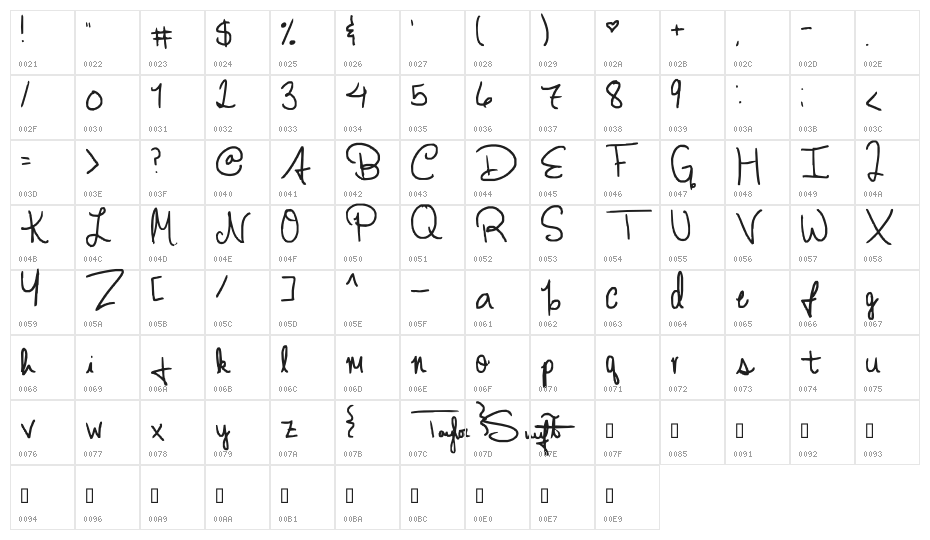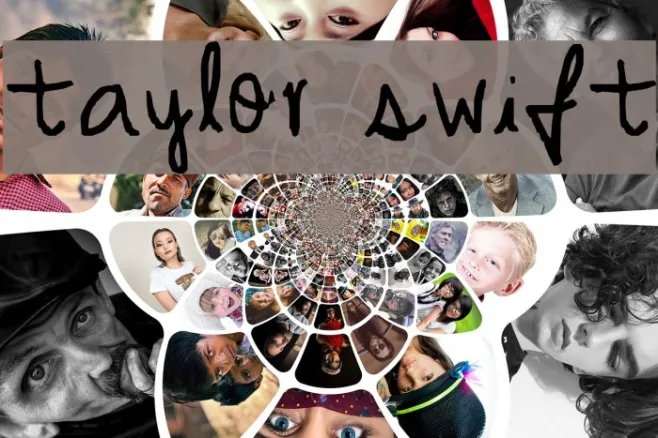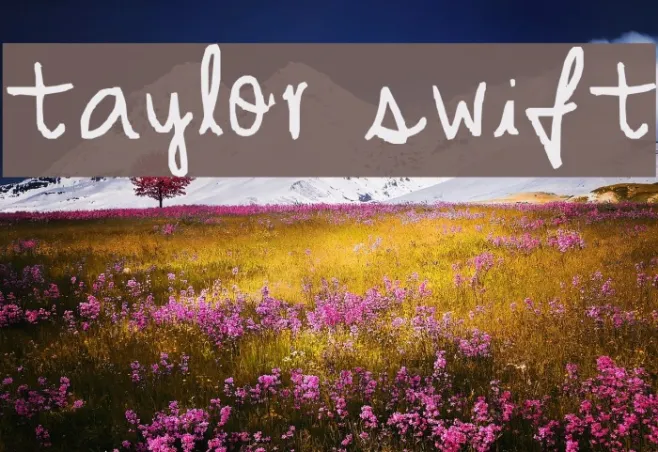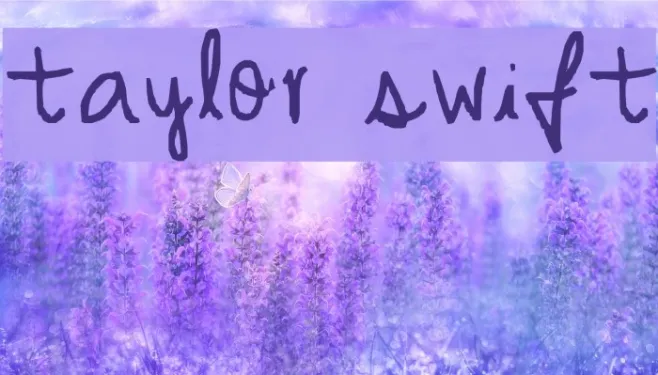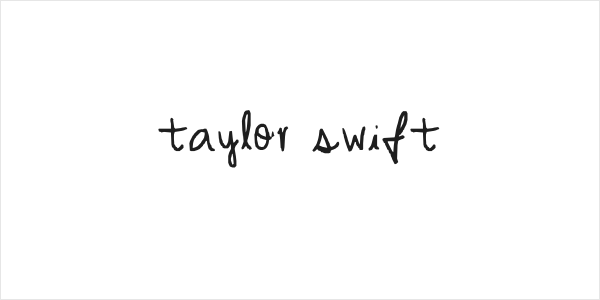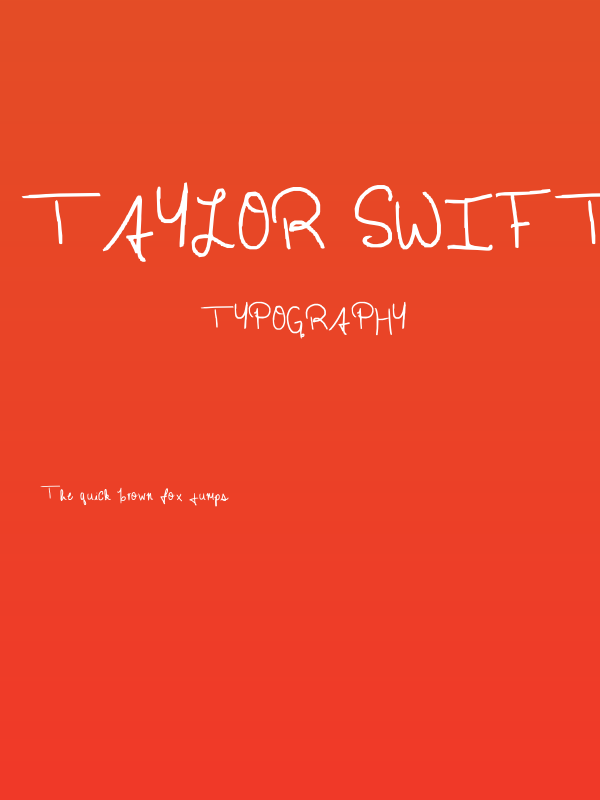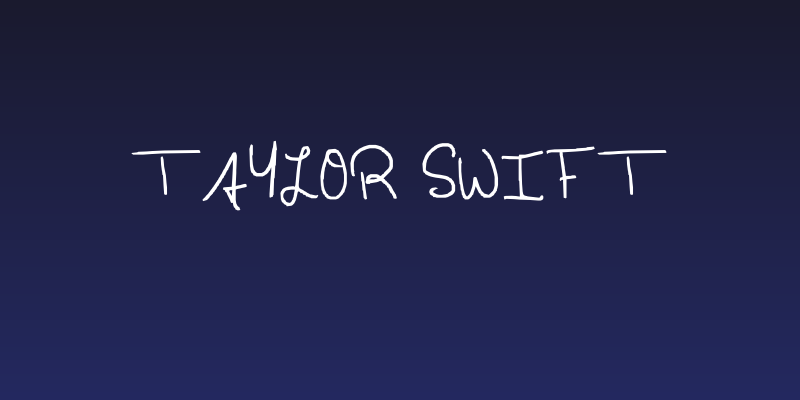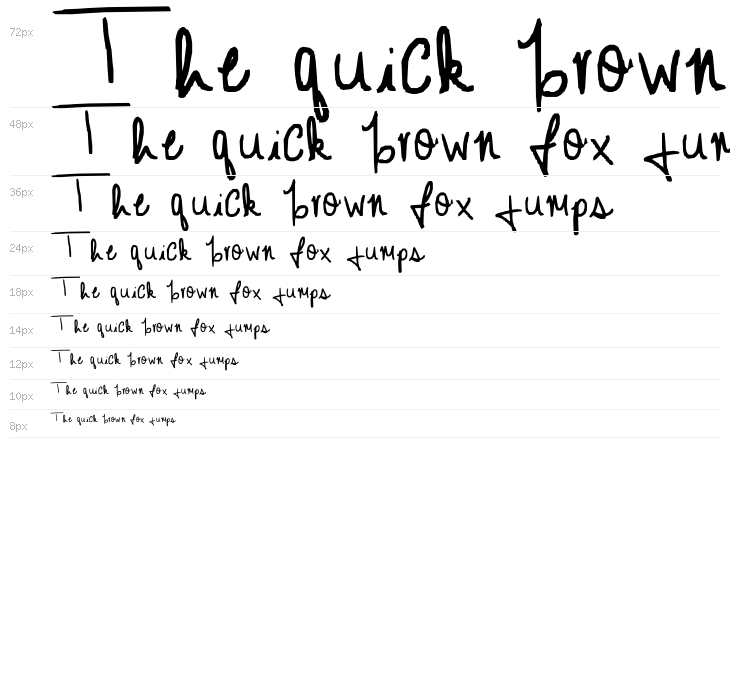
taylor swift Font
taylor swift Description
This font features a playful and casual handwritten style, characterized by its fluid and dynamic strokes. The uppercase letters are slightly slanted with a whimsical flair, while the lowercase letters maintain a consistent flow, adding to the font's approachable and friendly appearance. The numbers and special characters are crafted with the same lively energy, making them blend seamlessly with the alphabet. The overall design is informal yet stylish, perfect for projects that require a personal touch.